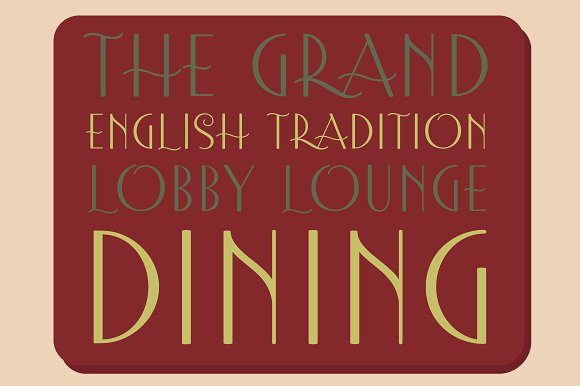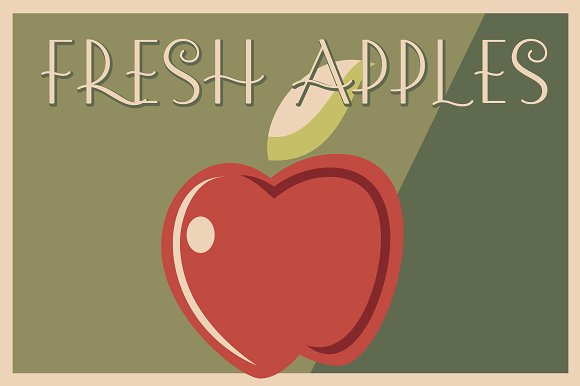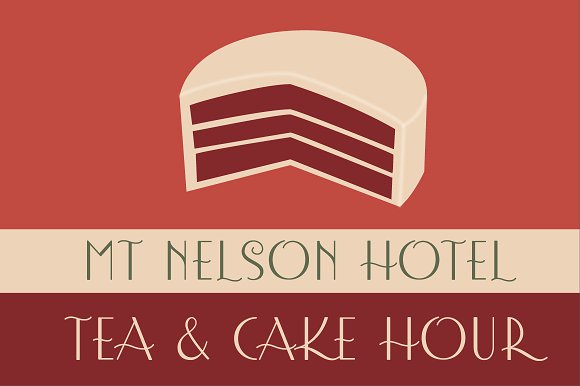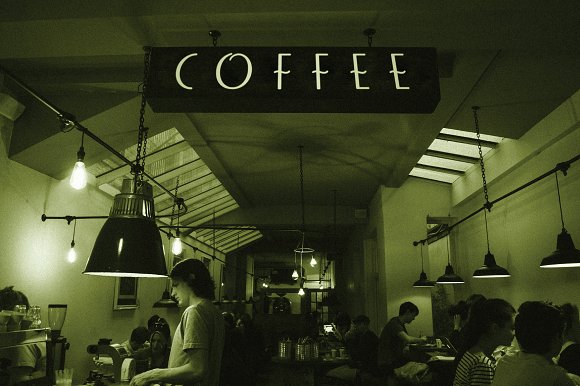
A Delightful Discovery: Unpacking the Afternoon Tea Font
There’s something magical about stumbling upon an old typography book in a dusty corner of a vintage bookstore. The musty smell, the yellowed pages, and the intricate illustrations transport you to a bygone era of creative expression. For designers, it’s moments like these that spark inspiration and fuel our passion for the craft. One such discovery is the Afternoon Tea Font, a caps-only type that has been delighting designers for generations.
This elegant font, inspired by a 1938 lettering specimen in Letters and Lettering by Paul Carlyle and Guy Oring, boasts a striking balance of thick and thin strokes that evoke the feel of ink pen work. Its sturdy presence makes it perfect for titles and headings, adding a touch of sophistication to any design. As a valuable addition to any designer’s toolkit, the Afternoon Tea Font is sure to delight and inspire.
- Font Family: Afternoon Tea Font is a unique, hand-drawn serif font designed to evoke a sense of elegance and sophistication.
- Unique Characteristics: This font features intricate details, such as subtle flourishes and ornate decorations, making it perfect for creating visually stunning designs.
Afternoon Tea Font Review
I recently had the chance to work with Afternoon Tea Font and here’s my honest take on it.
- Unique Character Set – Afternoon Tea Font comes with a lovely set of characters that will transport you to a quaint English garden. The characters are well-designed and have a great level of detail.
- High-Quality Typography – The font is crisp and clear, making it perfect for digital use. It’s great for titles, headings, and even body text.
- Limited Language Support – Unfortunately, Afternoon Tea Font only supports a limited range of languages, which may be a drawback for designers working on international projects.
- Not Ideal for Large Text – While the font looks great at smaller sizes, it can become pixelated and difficult to read when used at larger sizes.
Overall, I think Afternoon Tea Font is a charming addition to any design project. While it has its limitations, it’s a great choice for titles, headings, and other design elements where a touch of whimsy is needed.
The Afternoon Tea Font is perfect for:
- Creating a vintage or classic look for invitations, menus, or other print materials.
- Designing a whimsical or elegant atmosphere for weddings, baby showers, or other special events.
- Adding a touch of sophistication to business materials, such as reports or marketing materials.
Alternatives to “Afternoon Tea Font”
Playfair Display is a luxurious, high-end serif font ideal for creating a sophisticated and elegant atmosphere. It’s perfect for use in high-end branding, weddings, and luxury products.
Compared to Afternoon Tea Font, Playfair Display has a more refined and elegant feel, making it suitable for high-end applications. It lacks the vintage and whimsical feel of Afternoon Tea Font, but its intricate details and luxurious feel make it a great alternative.
Great Vibes is a beautiful, elegant script font that’s perfect for creating a romantic and whimsical atmosphere. It’s ideal for use in wedding invitations, branding, and packaging.
Compared to Afternoon Tea Font, Great Vibes has a more delicate and romantic feel, making it suitable for applications where a touch of elegance is needed. It lacks the vintage feel of Afternoon Tea Font, but its beautiful curves and lines make it a great alternative.